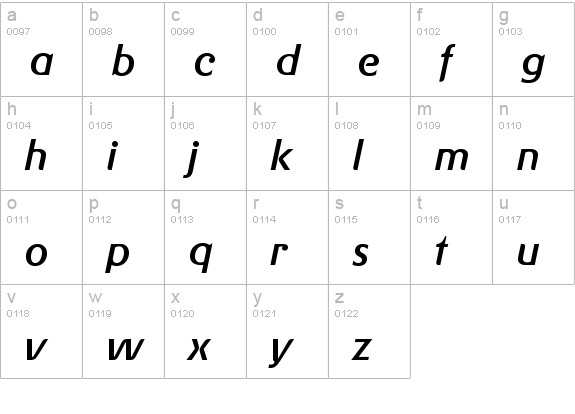
Gerstner BQ Italic is a distinctive, italic variant in the Gerstner typeface family \xE2\x80\x94 well suited to design and typography projects.
Gerstner BQ Italic font exudes elegance and sophistication with its sleek and stylish design. The italicized letterforms add a touch of flair and grace to any project, making it perfect for adding a sense of refinement and modernity. The flowing curves and unique angles of this typeface create a sense of movement and dynamism, making it a versatile choice for a wide range of design applications. What's even better is that Gerstner BQ Italic font is available for free download at FontsMarket.com. Now you can effortlessly elevate your designs with this stunning typeface without having to worry about any extra costs. Don't miss out on this opportunity to enhance your projects with the timeless beauty of Gerstner BQ Italic font, available for free at FontsMarket.com.